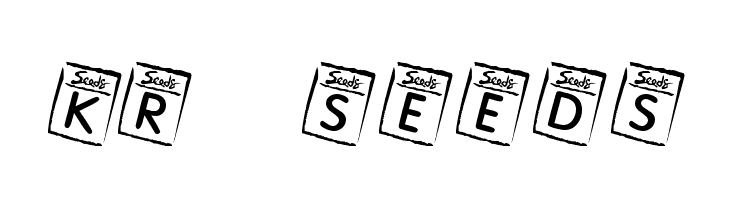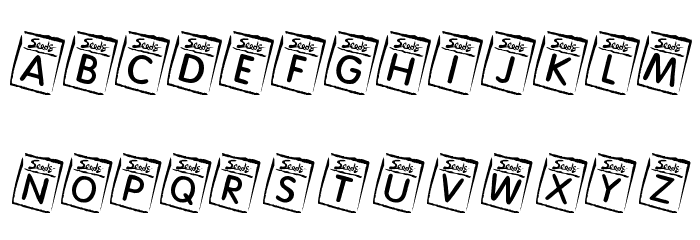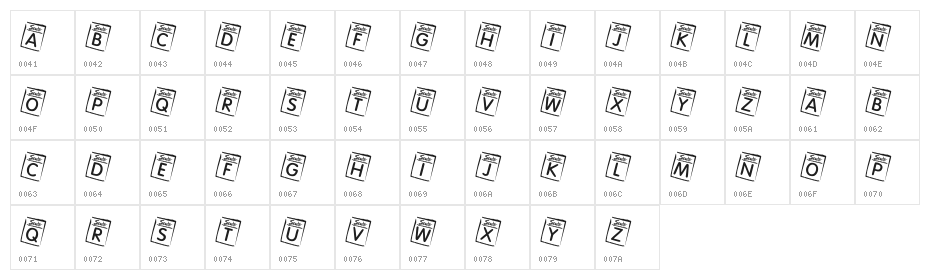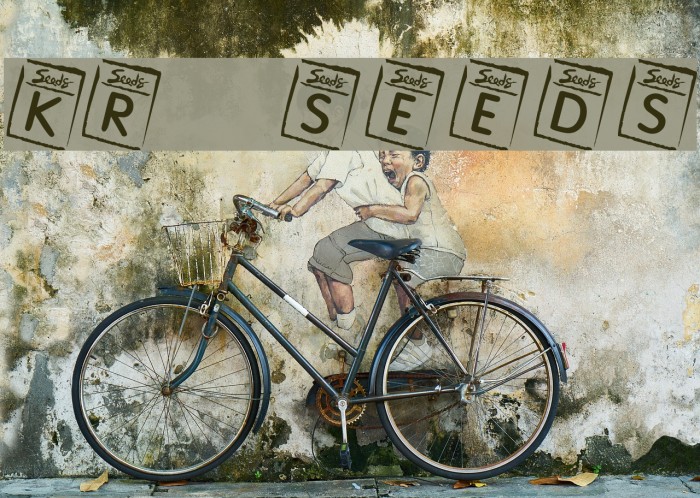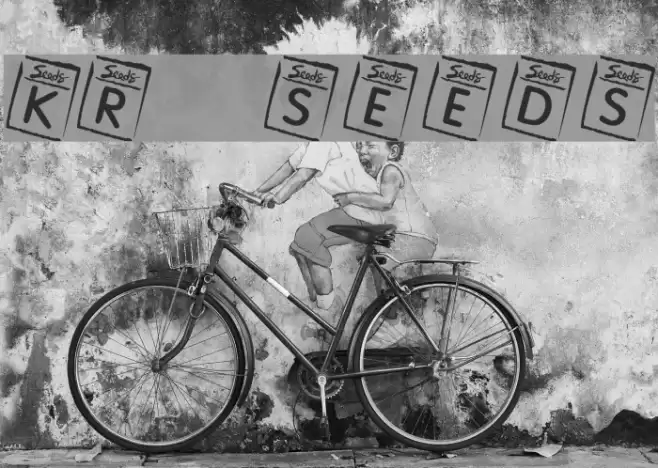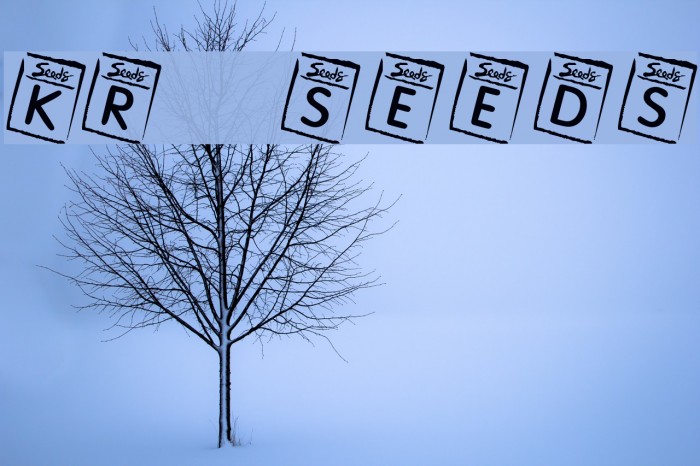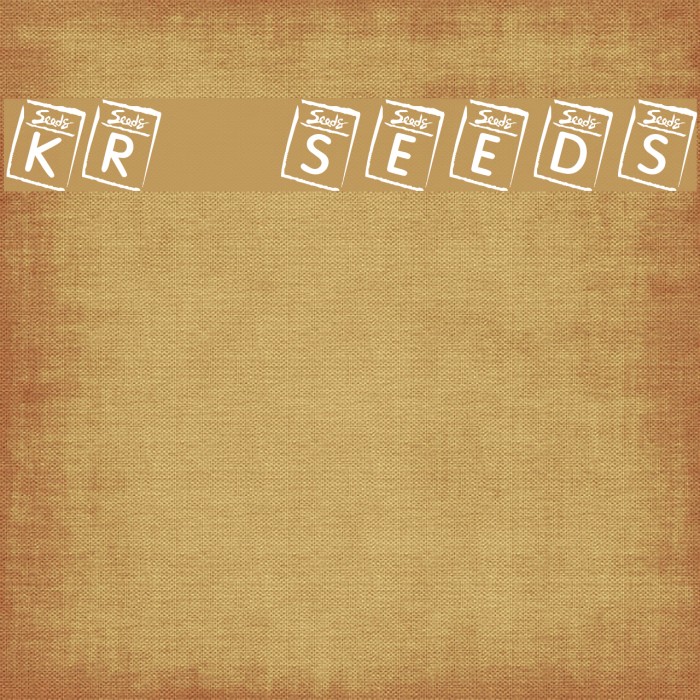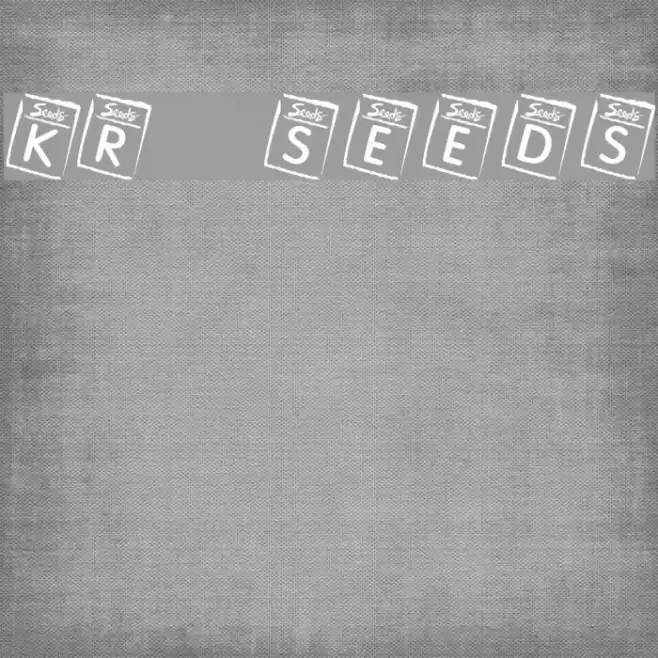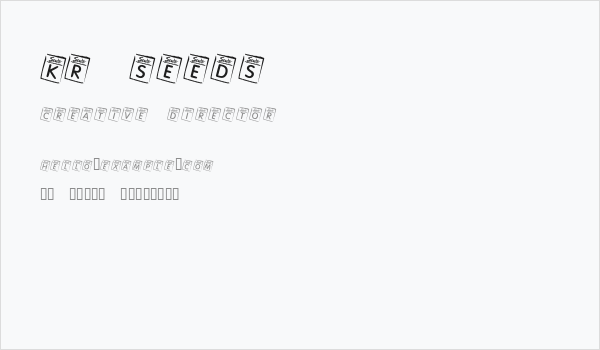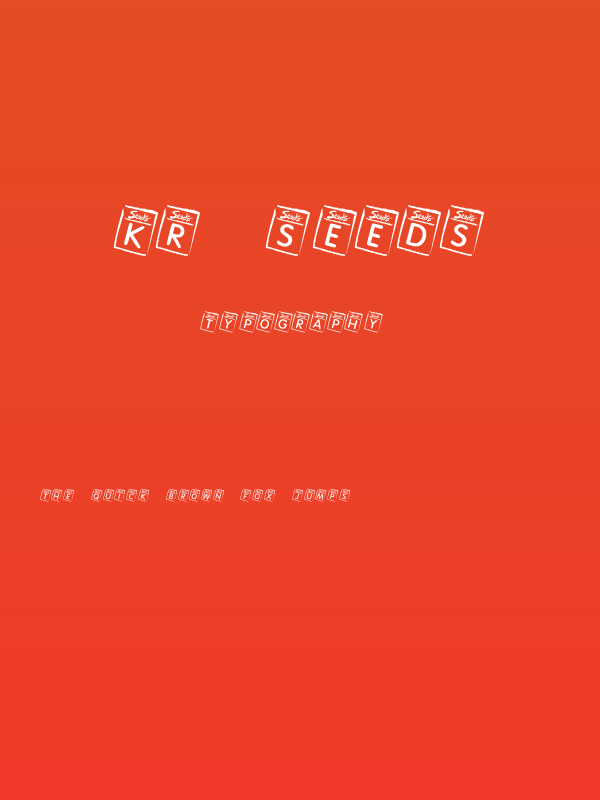
KR Seeds Font
KR Seeds Description
This font features each letter enclosed within a stylized seed packet design, giving it a unique and playful appearance. The letters are bold and uppercase, with a slight slant that adds a dynamic feel. The design is consistent across all characters, maintaining a uniform look that is both decorative and functional. The font's novelty lies in its creative presentation, making it ideal for projects that require a touch of whimsy and originality.
| Proposed Projects | Ideal for gardening-themed posters, children's book covers, or playful branding materials. |